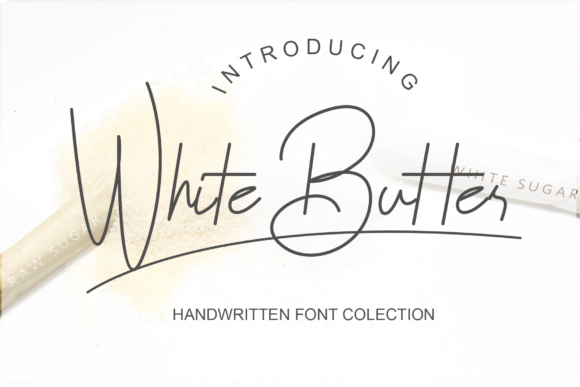
About White Butter Font
White Butter font, with its exquisite script font, infuses a sense of elegance and charm into any design project it graces. Crafted with precision, this handwritten typeface adds a touch of sophistication and romance to your creations.
At the heart of White Butter font lies its graceful script design, characterized by flowing strokes and delicate curves. Each letter exudes a sense of warmth and character, creating a visually captivating arrangement that draws the eye.
One of the defining features of White Butter font is its versatility. Whether used for wedding invitations, love letters, or greeting cards, it effortlessly captures the essence of romance and adds a joyful touch to every project.
Moreover, White Butter font evokes a sense of joy and whimsy, making it perfect for conveying heartfelt messages and sentiments. Its delicate demeanor creates an inviting and intimate atmosphere, eliciting positive emotions from viewers.
In addition to its aesthetic appeal, White Butter font is designed for ease of use. Its well-crafted letterforms ensure clear legibility, while its compatibility with design software makes it accessible to designers of all levels.
In summary, White Butter font is a charming script typeface that brings elegance and romance to any project. With its graceful style and versatile application, it serves as a timeless addition to any designer’s toolkit. Let White Butter font be the perfect choice for adding a touch of beauty and sophistication to your next design endeavor, and watch as it brings your creative vision to life with effortless grace.